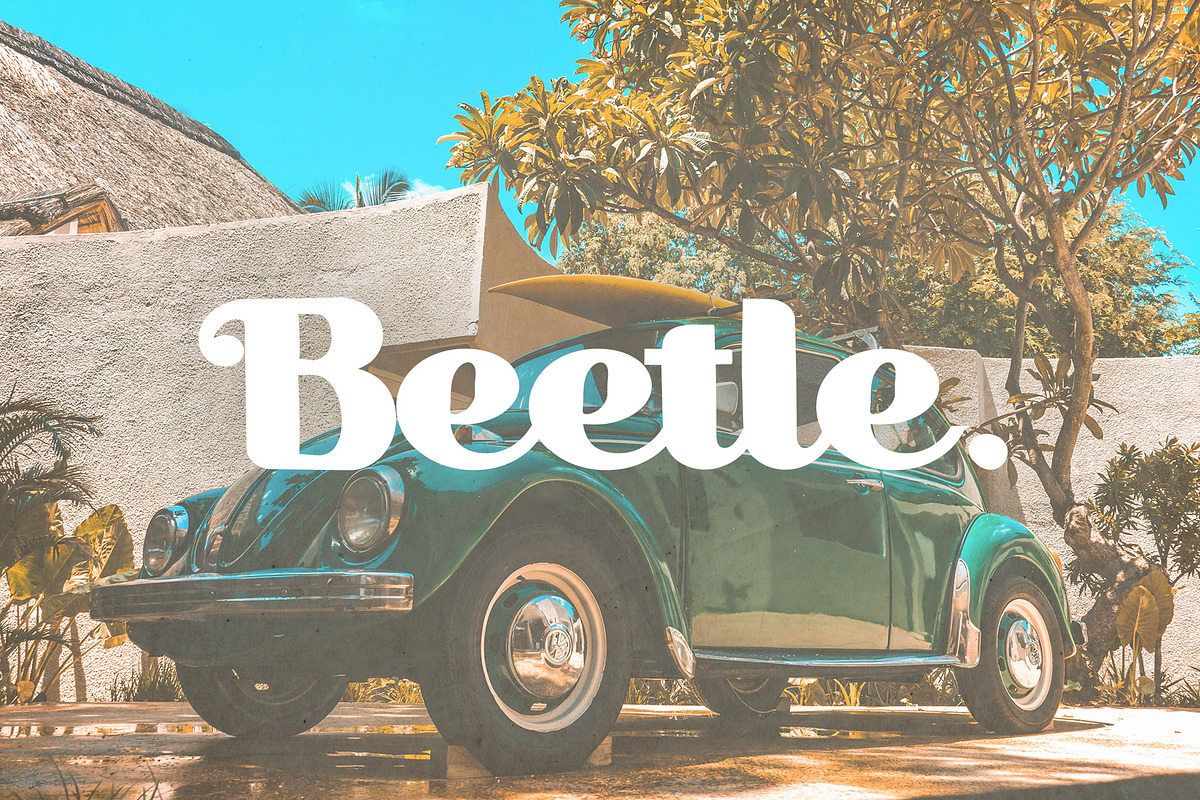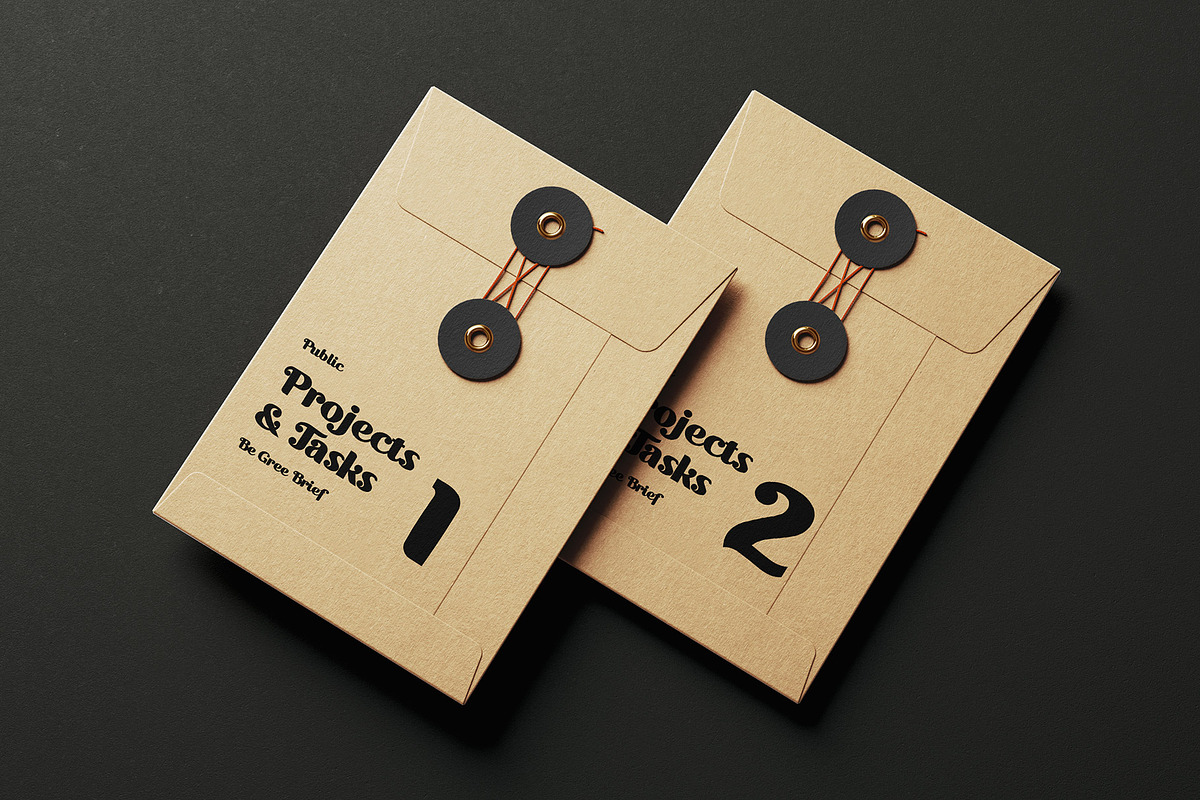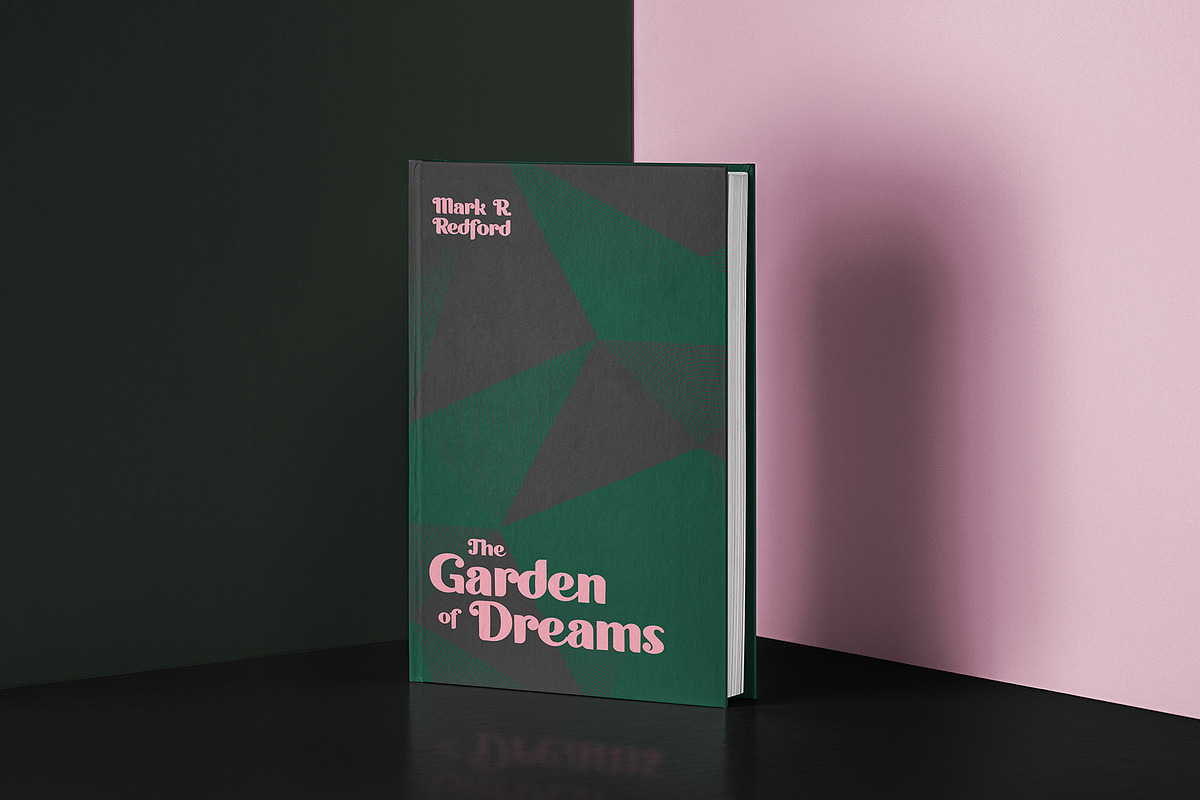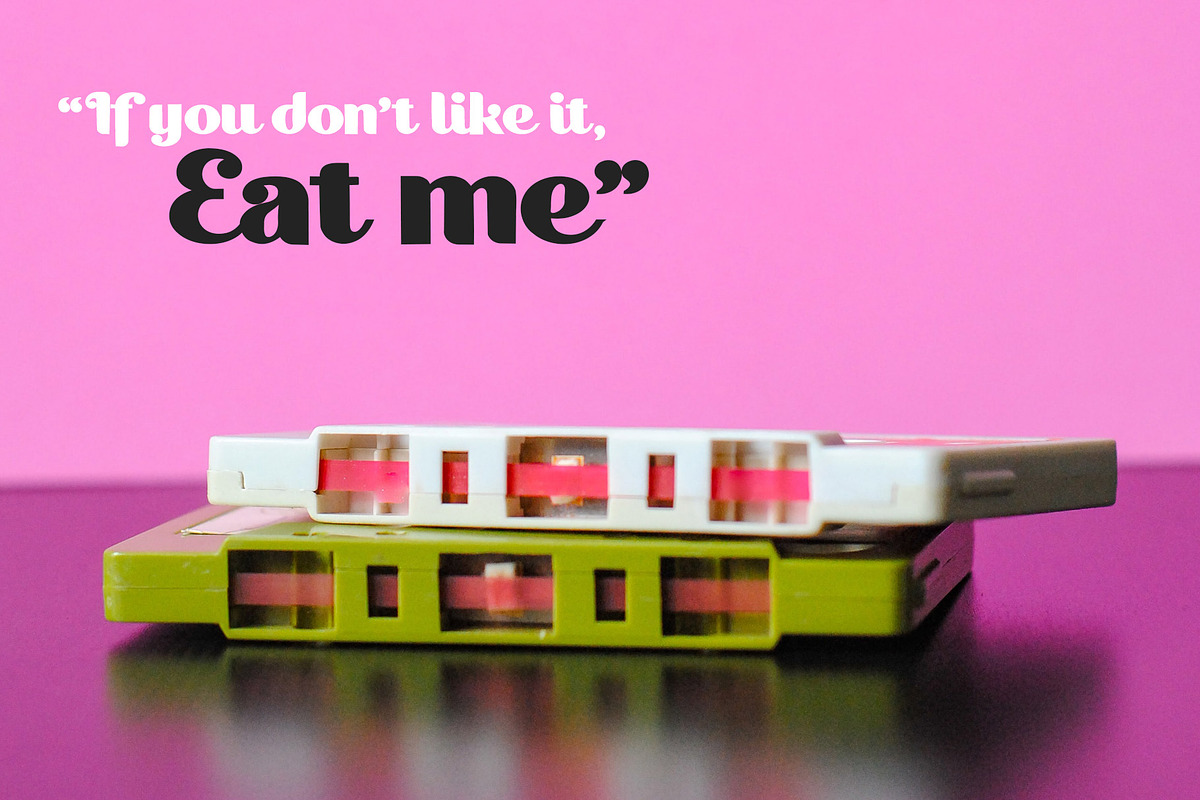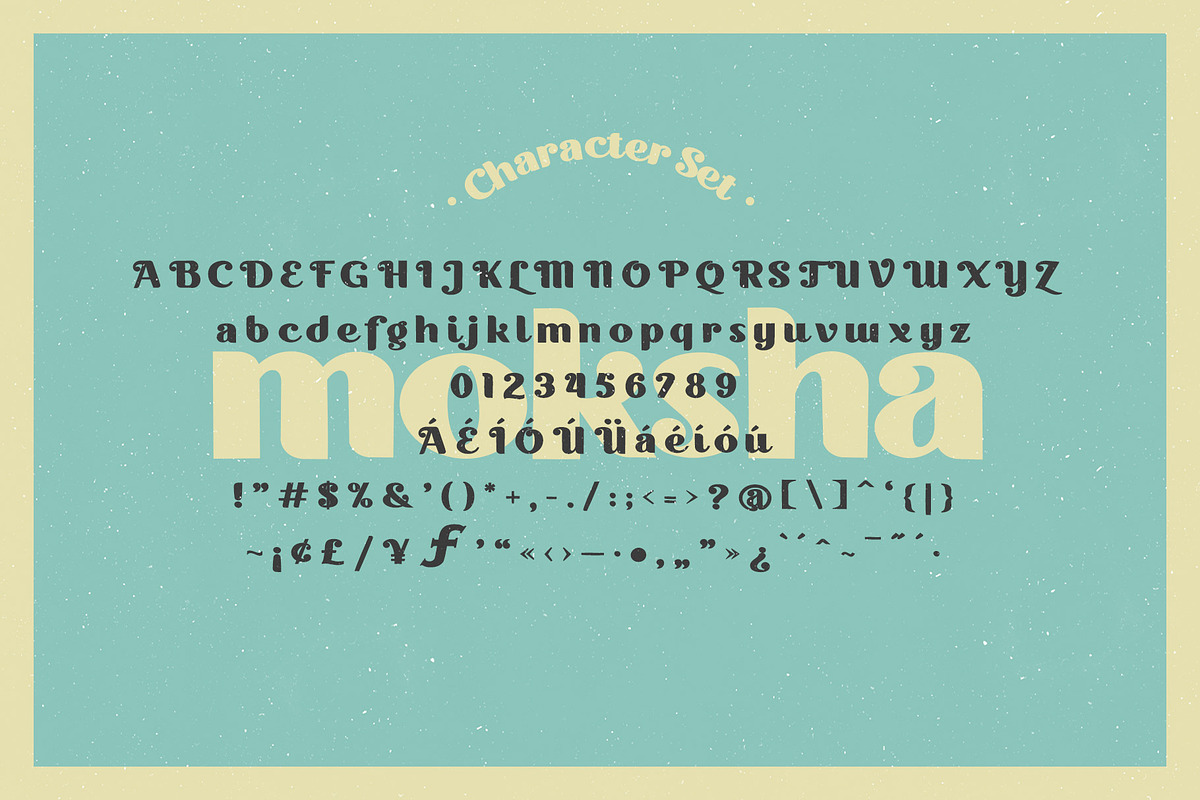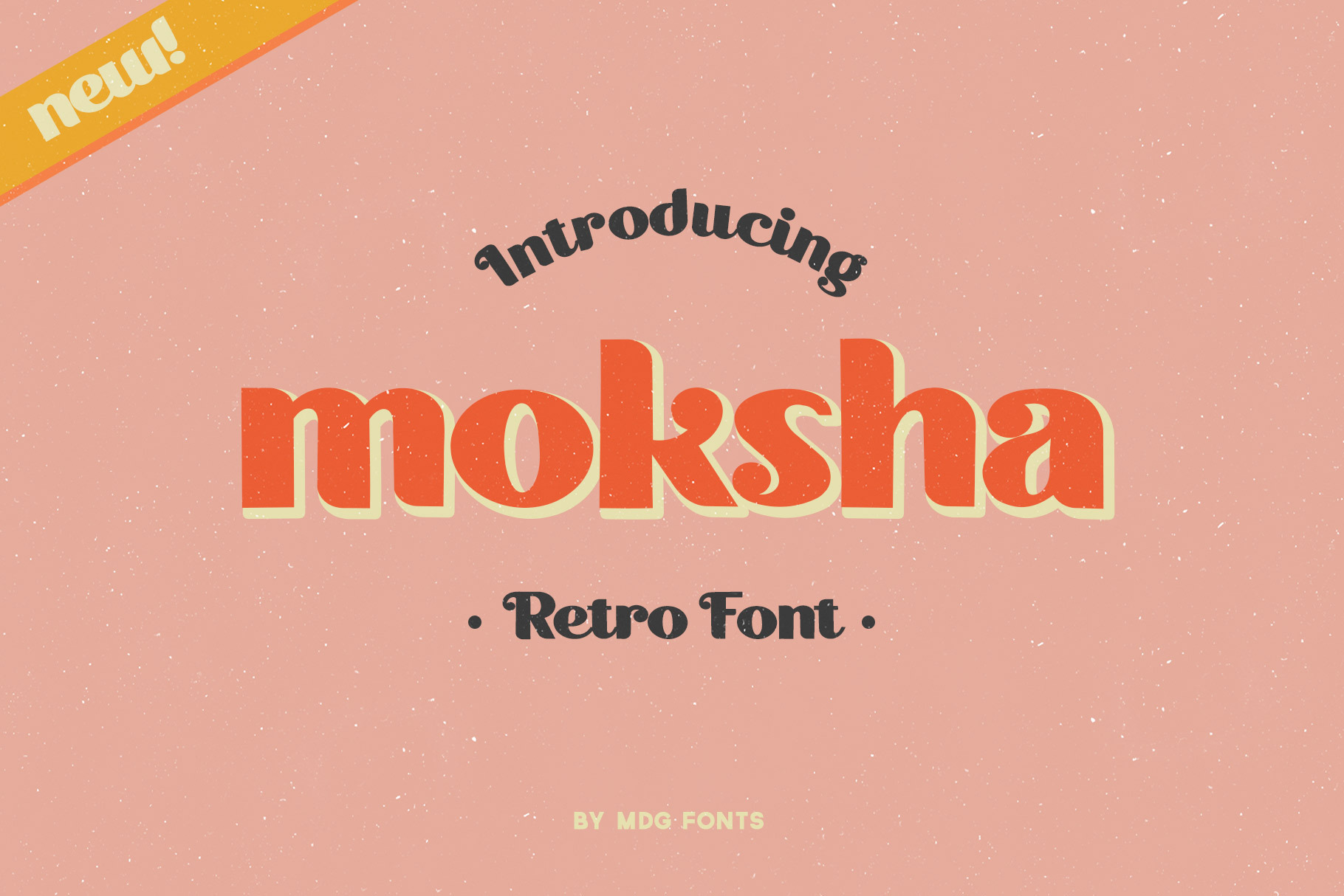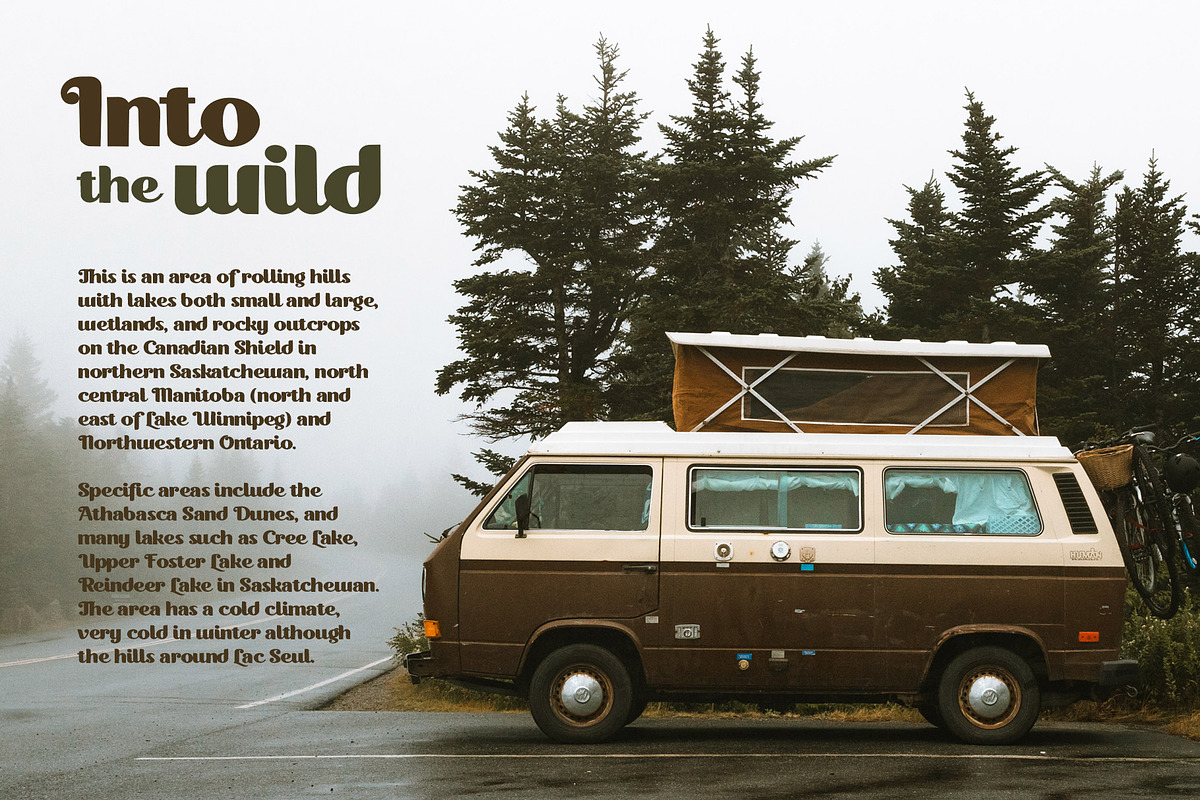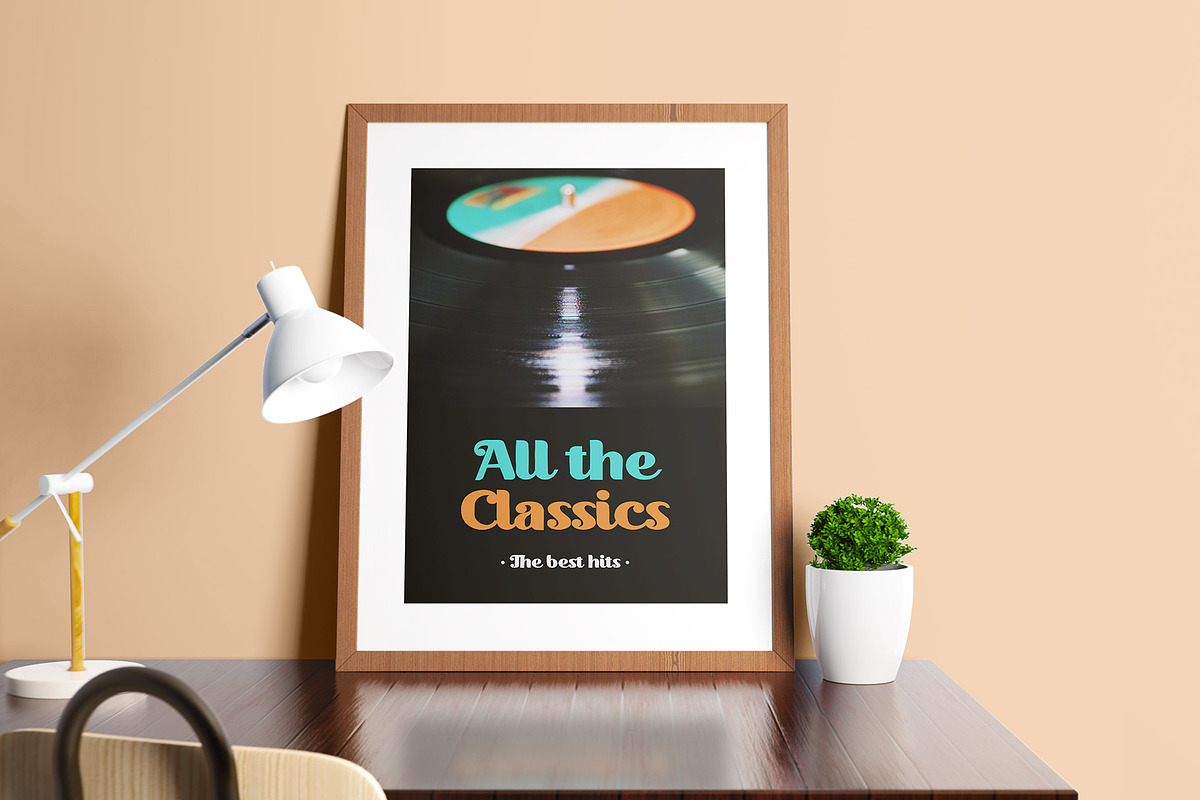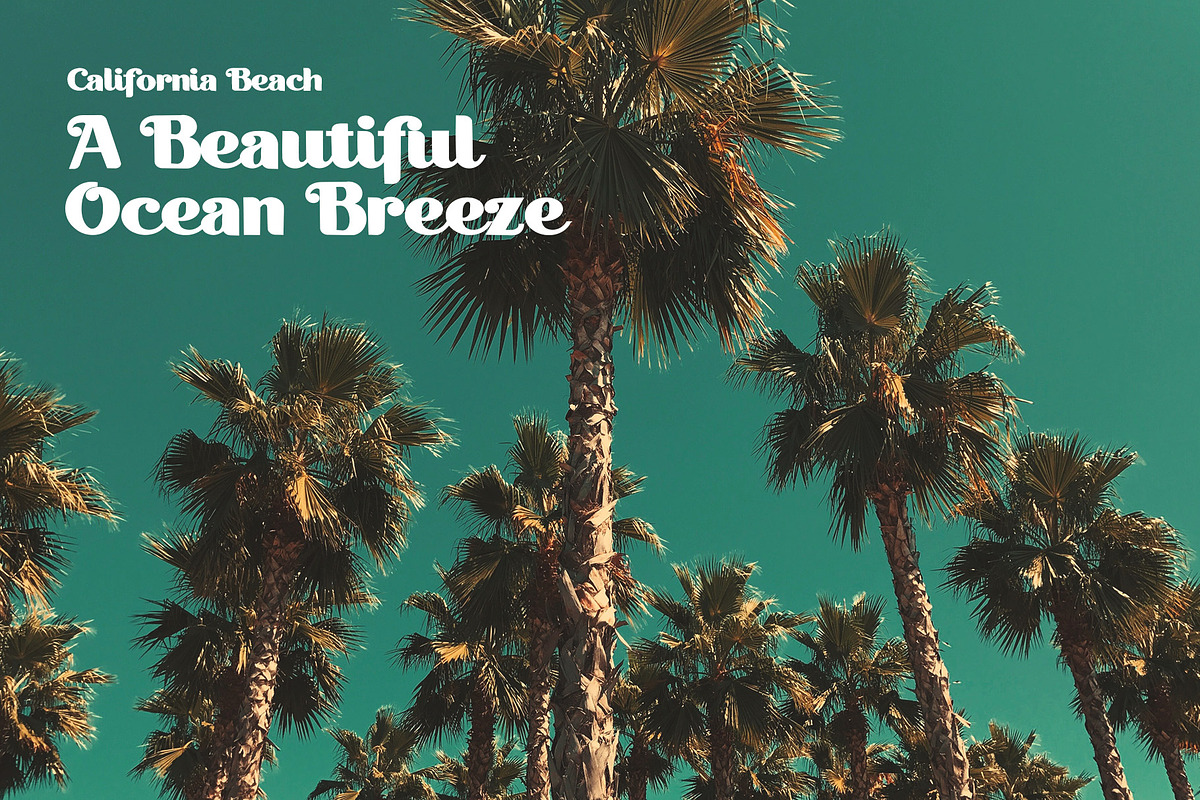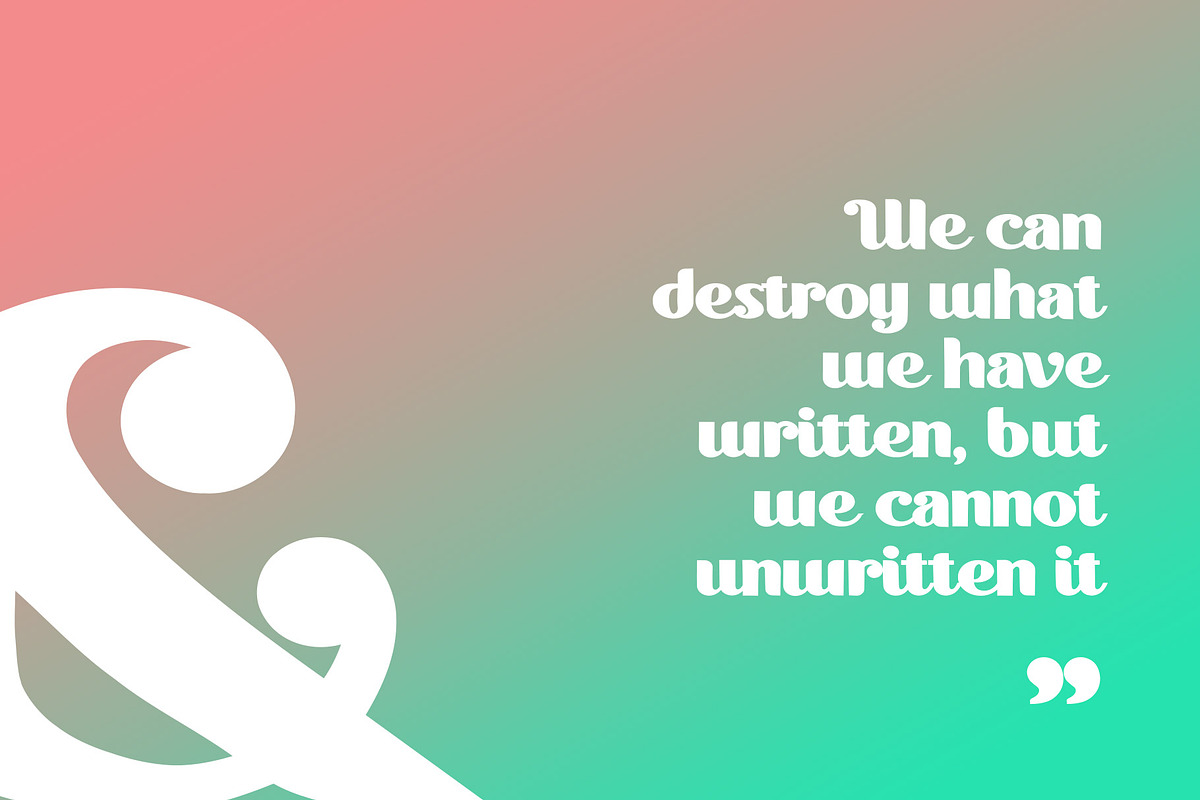
Moksha Font - Retro Style
Moksha Display Typeface
Upper and lowercase script font with balanced curves. Bold typography, inspired in retro lettering. Perfect for vintage logo designs. It contains characters, numbers and symbols.
This is definitely a cool looking 70's inspired font but I found A LOT of little problems with individual letters when I zoomed into them. The lowercase e has a strange semi serif at the end of the curve while the lowercase c has a cut into its tail. The lowercase j has some extra points sticking out and the lowercase l isnt even full one color, there is a small transparent hole on the left side. Not to sound harsh but it is a poorly made font with many basic design flaws.